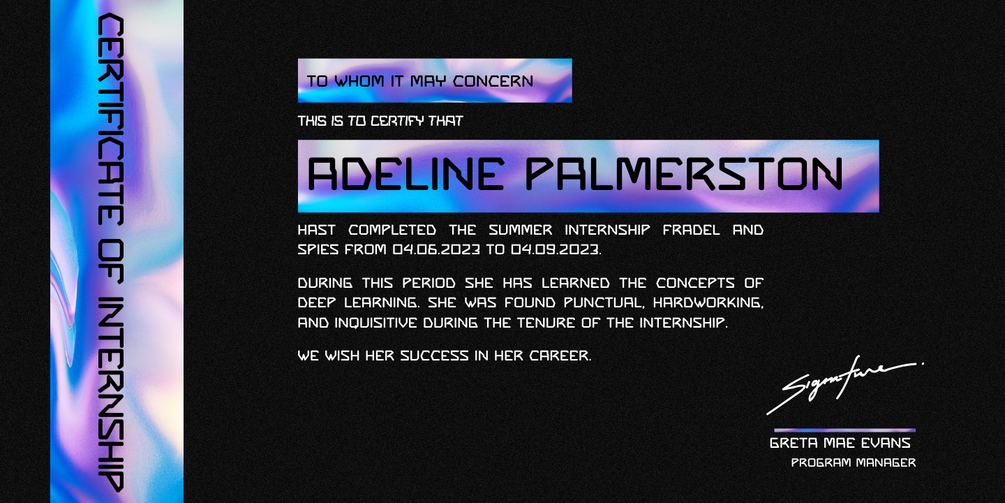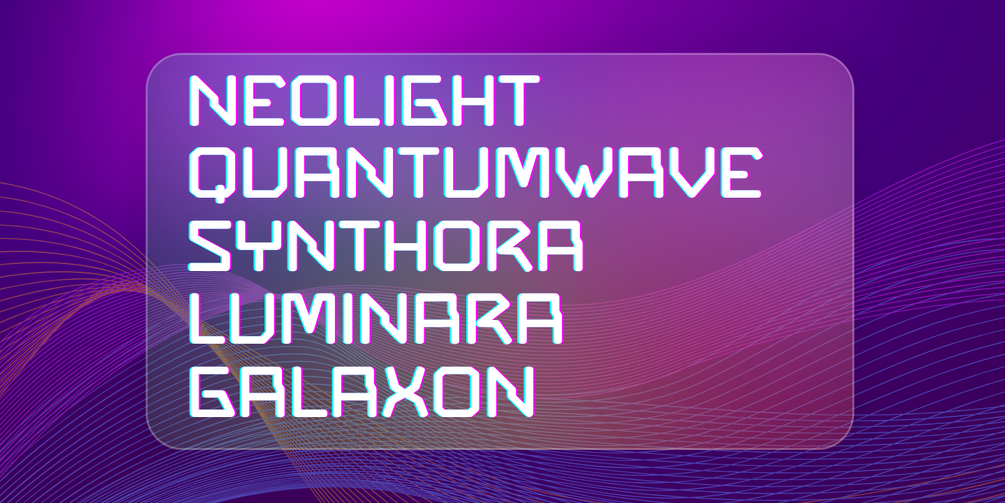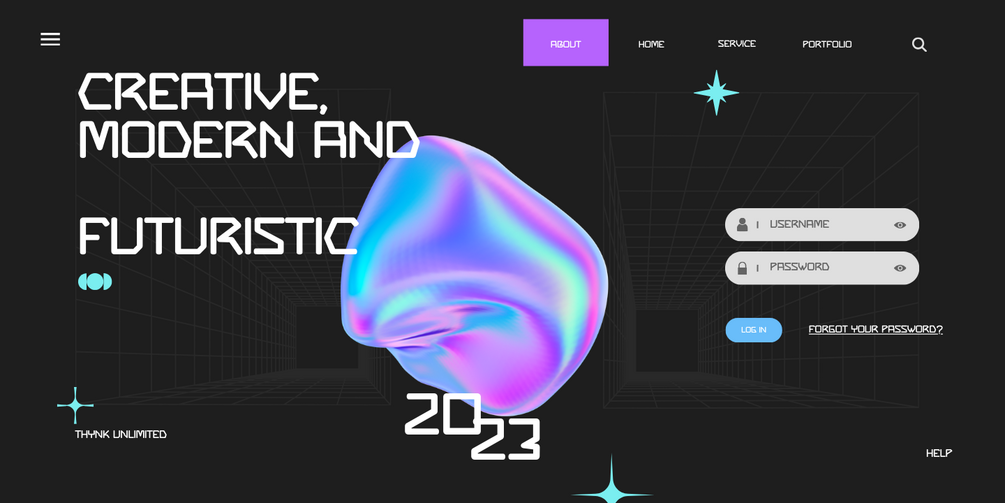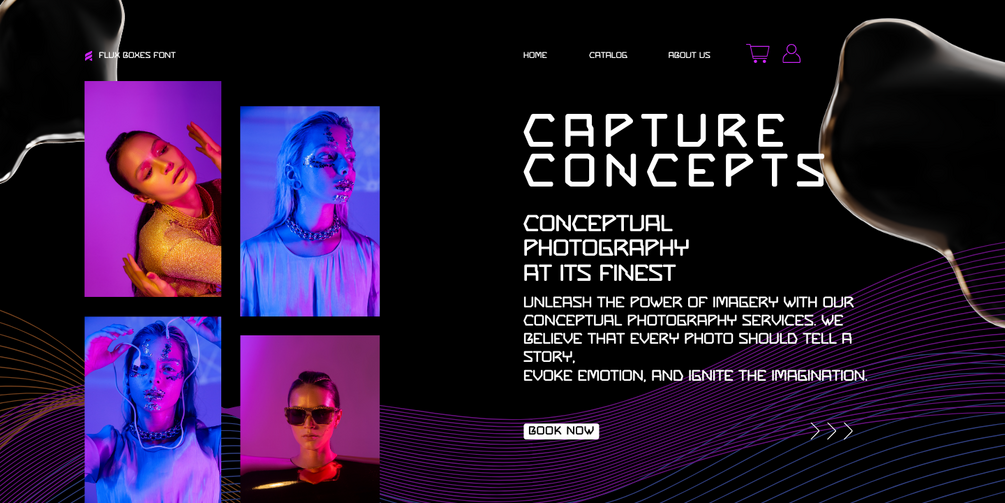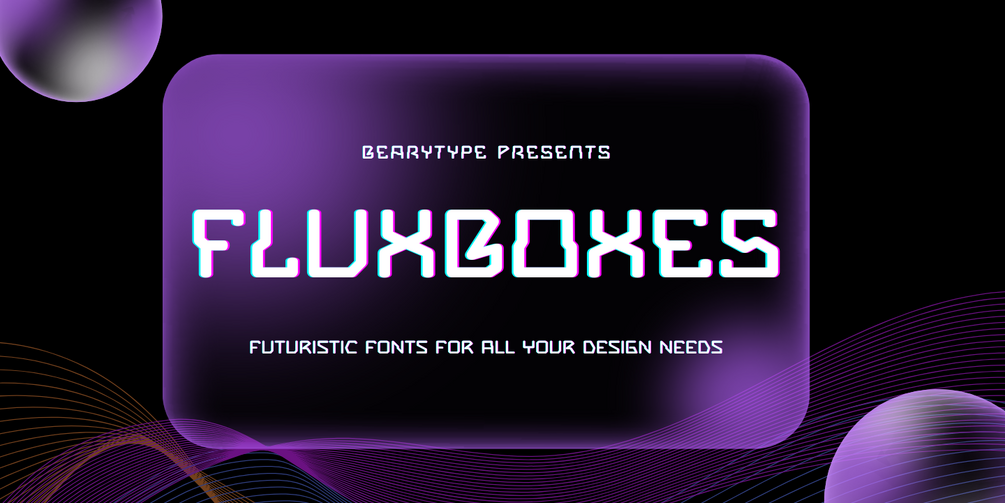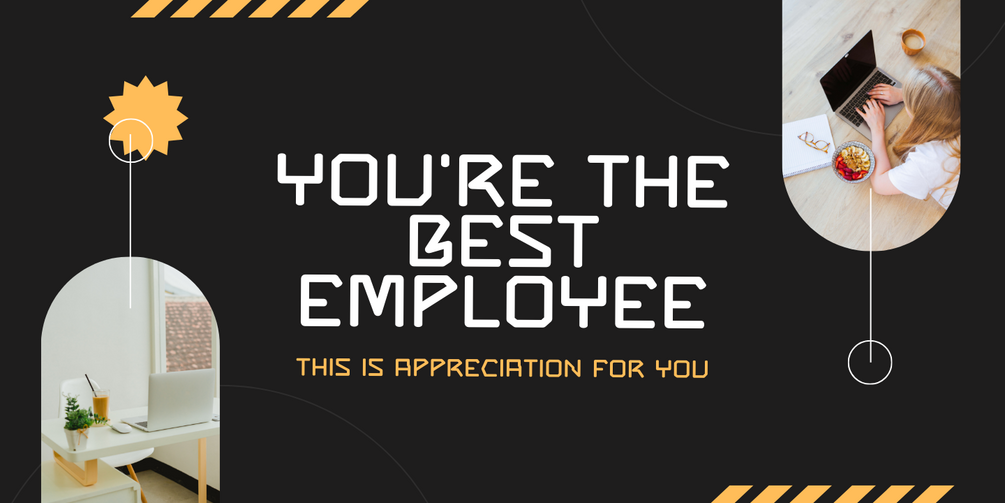
Futuristic Font | FLUXBOXES
Need a font that feels futuristic—but still clean, elegant, and sharp?
Meet FluxBoxes — a forward-thinking typeface built for tomorrow’s design.
With sleek lines and bold geometric forms, FluxBoxes transforms basic visuals into high-impact designs. Whether you're creating UI interfaces, posters, tech branding, or digital layouts, this font delivers a perfect balance of innovation and precision.
✨ Futuristic style with smart, clean shapes
✨ Ideal for branding, web, apps, tech interfaces, and ads
✨ Designed for clarity, elegance, and visual power
Why settle for ordinary?
⚡️ FluxBoxes makes your design look like the future—today.